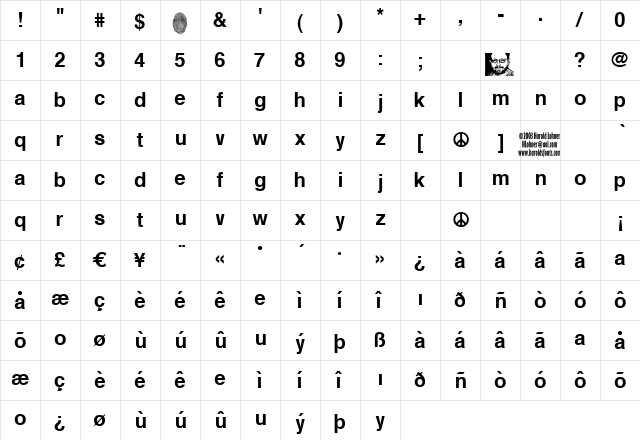
LevelFive Regular
Design Context for LevelFive Typeface
LevelFive takes a measured approach to typography — its balanced proportions and neutral character make it a reliable workhorse for both digital and print work.